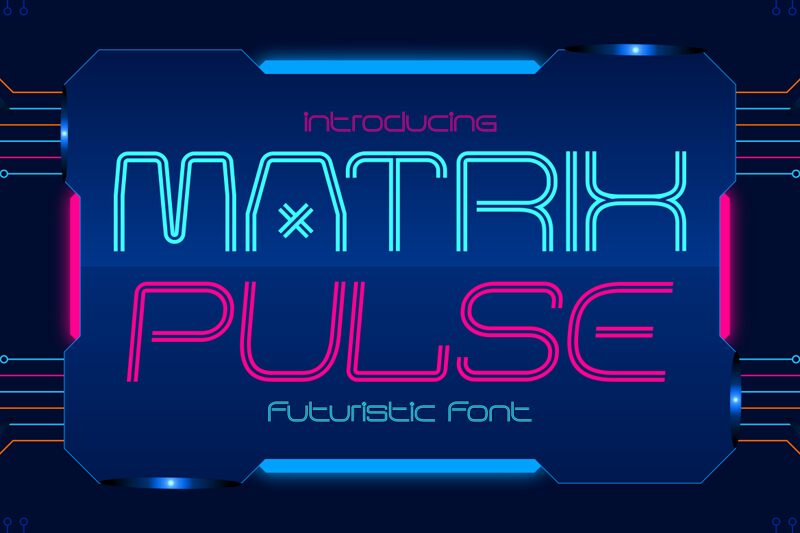
Matrix Pulse font family is a free techno font created by PutraCetol Studio capturing futuristic streamlined vibes. The typeface comes in 4 font styles that visualize digital aesthetics in form of letters for both capital and lowercase. Its high-tech feel makes even the simplest text look like a digital screen with a modern neon glow. Add this professional toolbox to your next project to develop a design with a futuristic effect that will surely impress the audience.
Use Matrix Pulse in modern applications, cyber and technology themes, or contexts that need to appear sleek and energetic. It fits logos, logotypes, and posters designed for electronic DJs, parties, and new gadgets. This font is perfect for product labels and packages, especially of futuristic, science fiction, or mathematical nature. Apply it to pictures and videos for enhanced storytelling or visual communication.